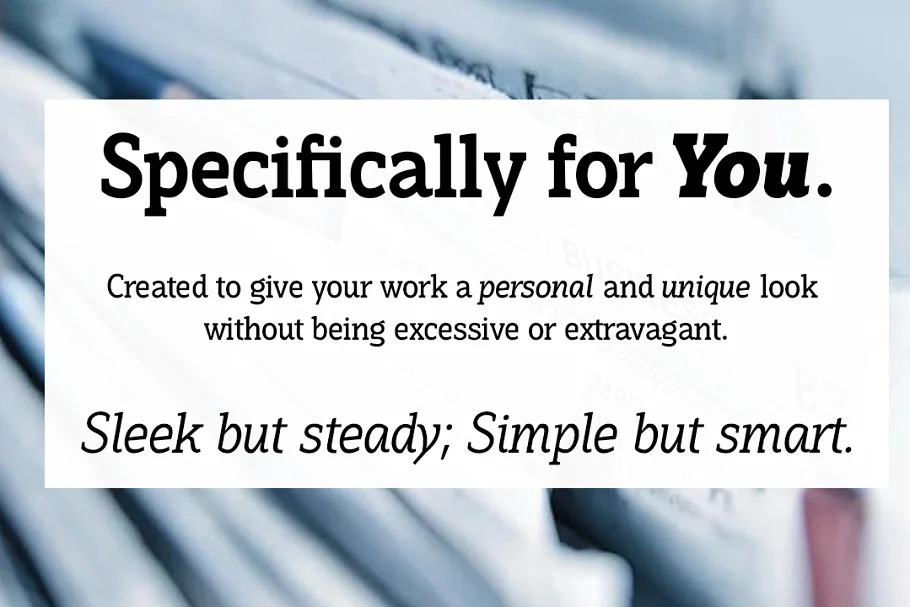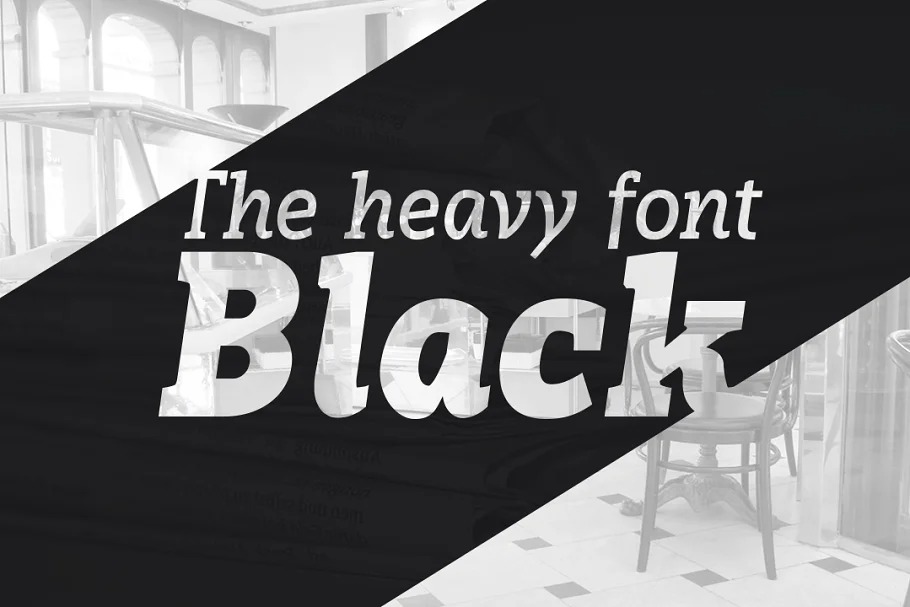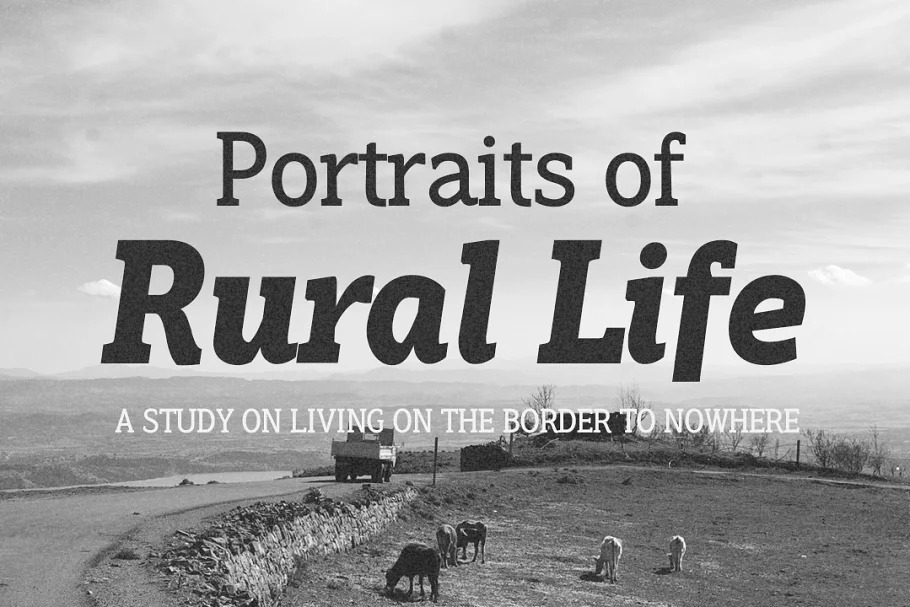
Hoyle Font
Hoyle Slab Serif Font
It’s a new slab serif font with a classic & elegant feel. Drawn and created by Måns Grebäck between 2019 and 2020, this classic design makes use of the fact that timelessness is the best manner to achieve modernity; the letters are of such composition that they will always be simultaneously contemporary and traditional.
Hoyle is a family containing five weights: Thin, Light, Medium, Bold and Black. Each weight is also provided as Italic, resulting in 10 unique styles. The weights are harmonic and created to balance perfectly against each other.
This slab serif typeface is also filled with OpenType features such as ligatures, alternates, oldstyle, superscript, subscript, fractional and alternate numbers.
It has a very extensive lingual support, covering European Latin, Vietnamese, Zulu and many more scripts. The font contains all characters you’ll ever need, including all punctuation and numbers.